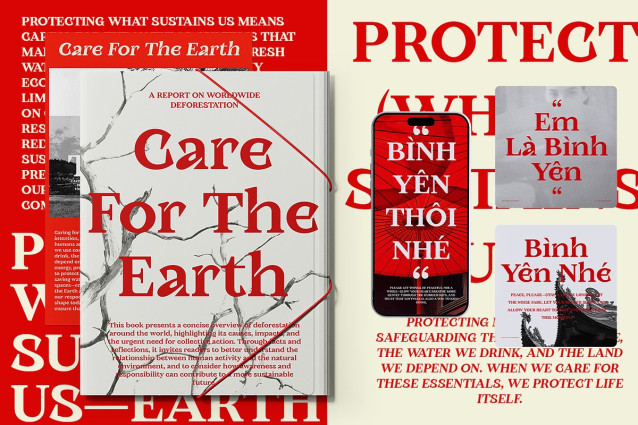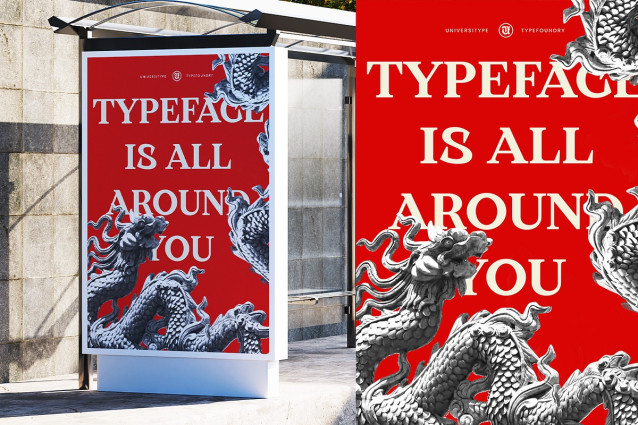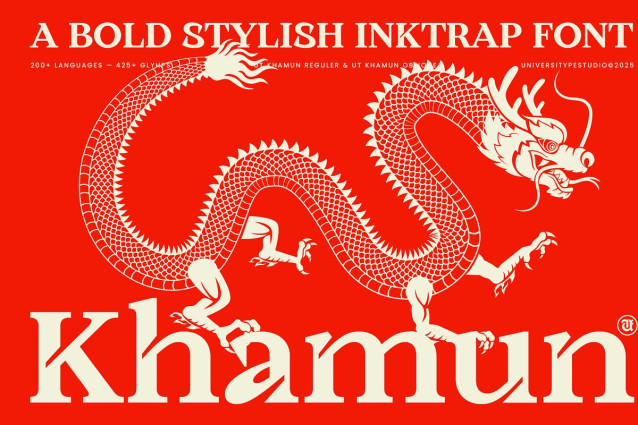
UT Khamun Font
UT Khamun Font is a bold inktrap serif built for strong visual statements. Heavy strokes, sharp cuts, and deep inktraps give the letters a confident texture that feels solid and expressive at display sizes. The balance between dramatic details and controlled proportions makes this typeface feel powerful, crafted, and intentional—perfect when typography needs to lead the conversation.
Best for Branding, logos, editorial headlines, posters, cultural visuals, fashion graphics, packaging, social media typography